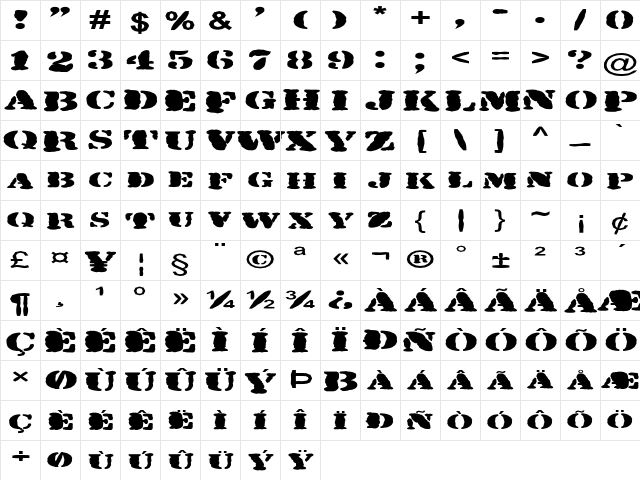
FZ UNIQUE 25 MANGLED EX Normal
Design Context for FZ UNIQUE 25 MANGLED EX
FZ UNIQUE 25 MANGLED EX is a composed and adaptable typeface that performs quietly and consistently across a wide range of design contexts.
Pro Tip: Use FZ UNIQUE 25 MANGLED EX in both headline and body roles to test its range before committing to a single application.